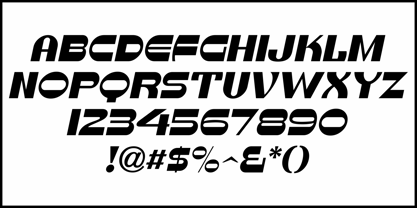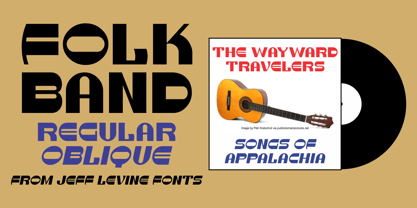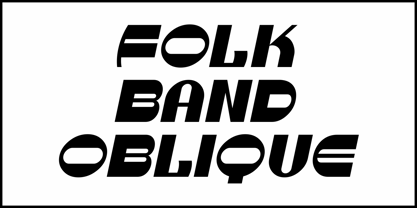
Folk Band JNL
by Jeff Levine
Paul Carlyle and Guy Oring's 1938 book "Letters and Lettering" contains many examples of plain and stylized alphabets and numerals for sign and show card work. Under their "Variety" category is a bold sans serif novelty design which could have been inspired by Art Nouveau, Art Deco or a combination of the two. Thie lettering sample also brings to mind the type revivals of the 1960s which were especially popular within the music industry at the time. Thus, the digital revival is named Folk Band JNL and is available in both regular and oblique versions.
Folk Band JNL